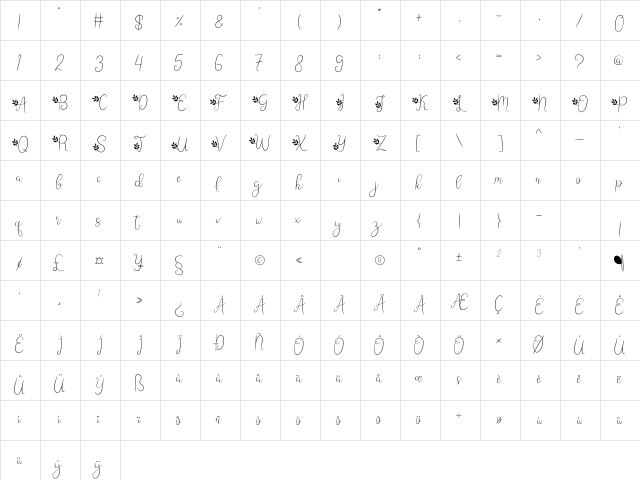
Leafing Regular
| Foundry | Illushvara Design |
| Designer | Bayu Suwirya |
Design Context for Leafing Typeface
Leafing is a composed and adaptable typeface that performs quietly and consistently across a wide range of design contexts.